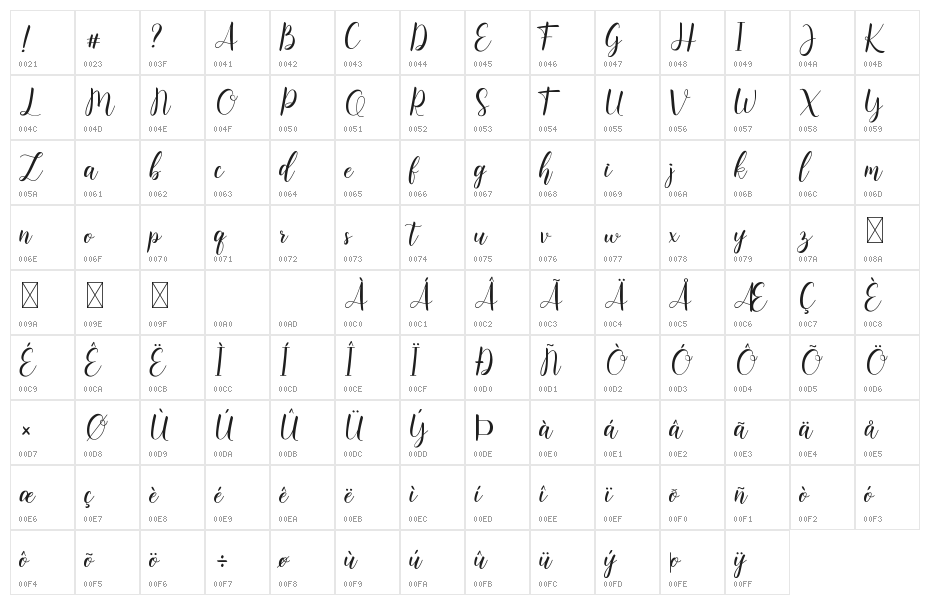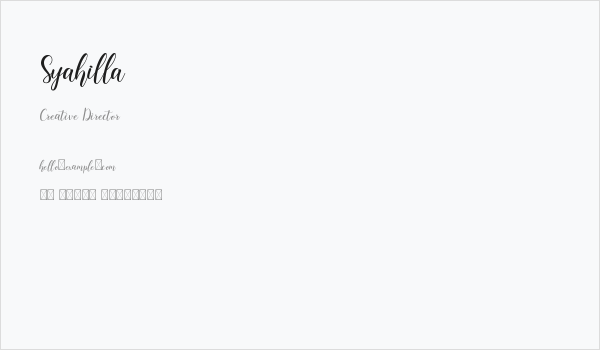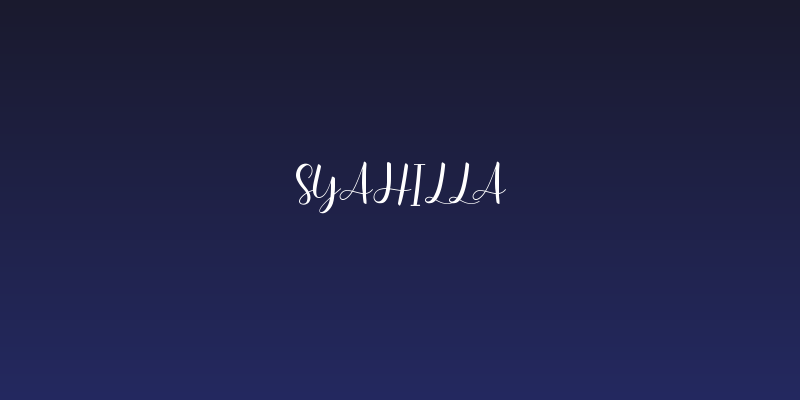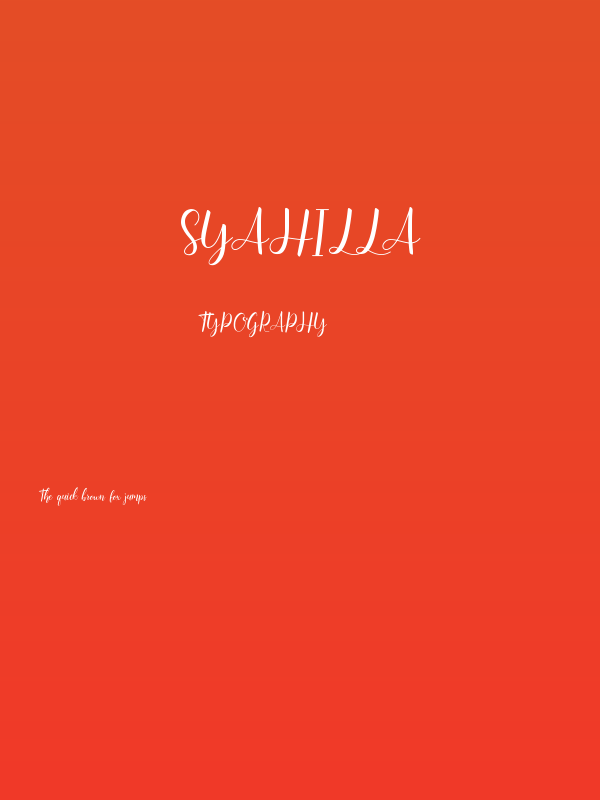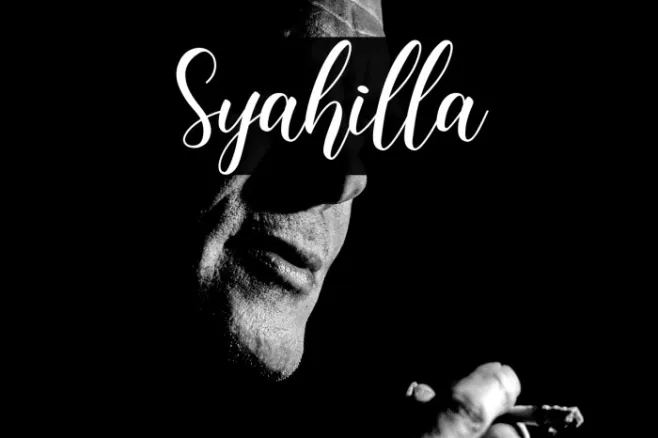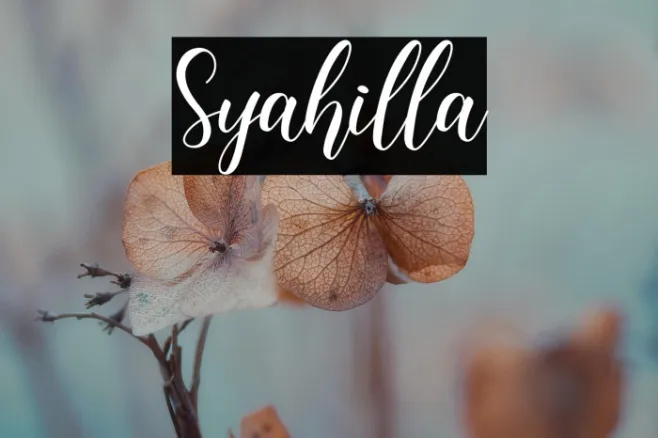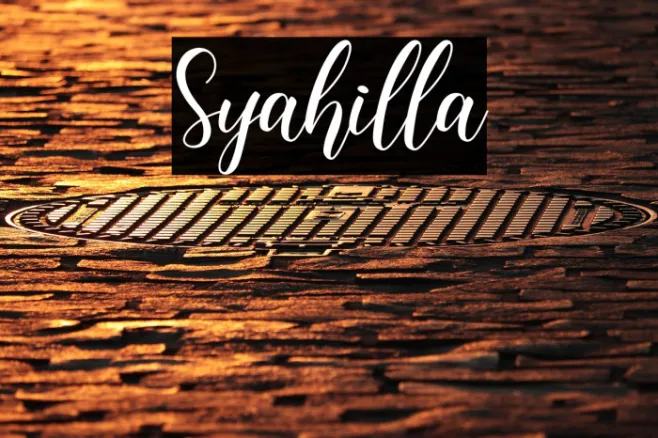
Syahilla Font
Syahilla Description
This font features an elegant, flowing script style with a modern touch. The characters are connected with smooth, sweeping curves, giving it a graceful and sophisticated appearance. The uppercase letters are tall and slender, while the lowercase letters maintain a consistent flow, enhancing readability. The font includes a variety of special characters, adding versatility to its use. The overall design is both artistic and functional, making it suitable for a wide range of creative projects.
| Proposed Projects | Ideal for wedding invitations, greeting cards, branding, and elegant packaging designs. |